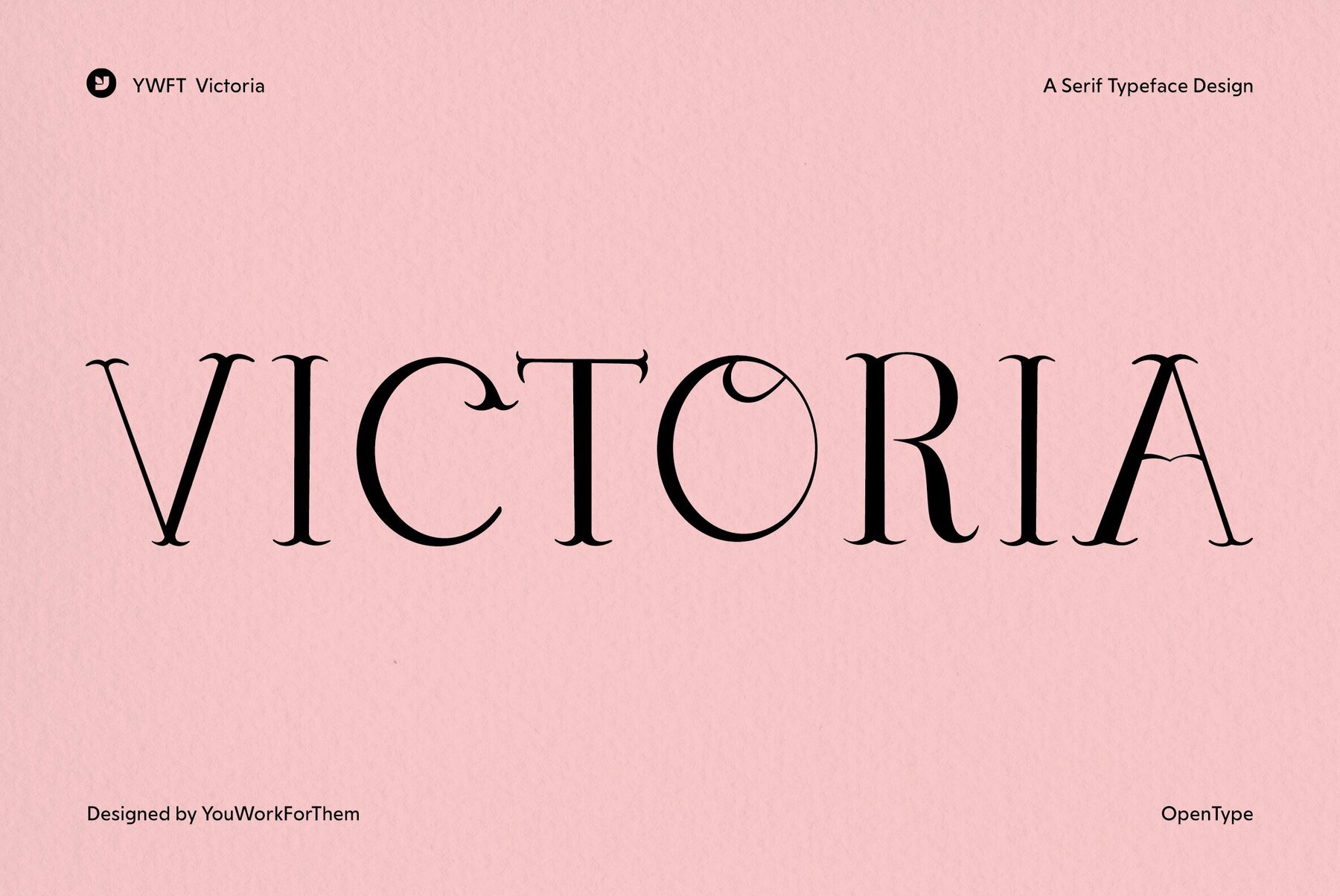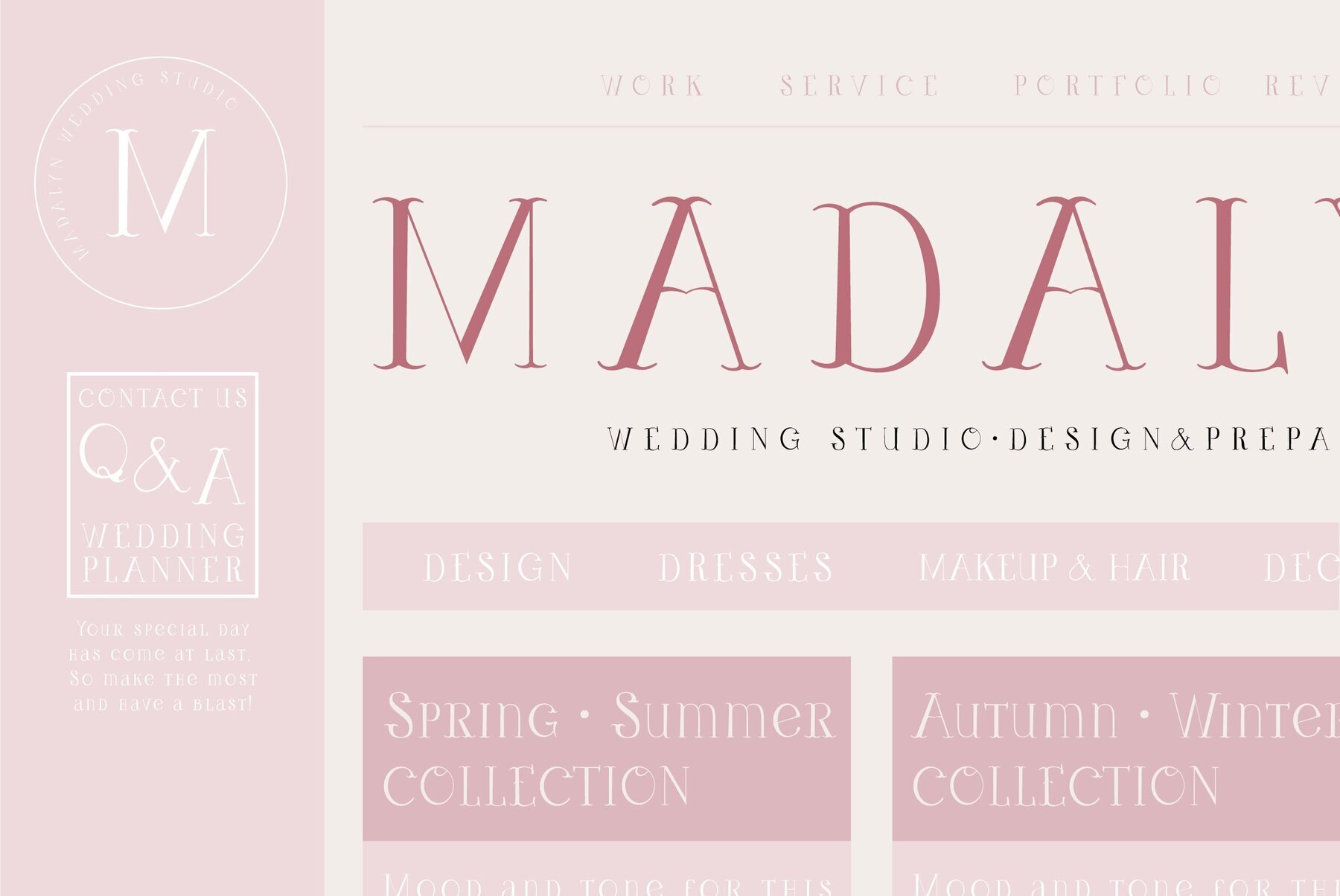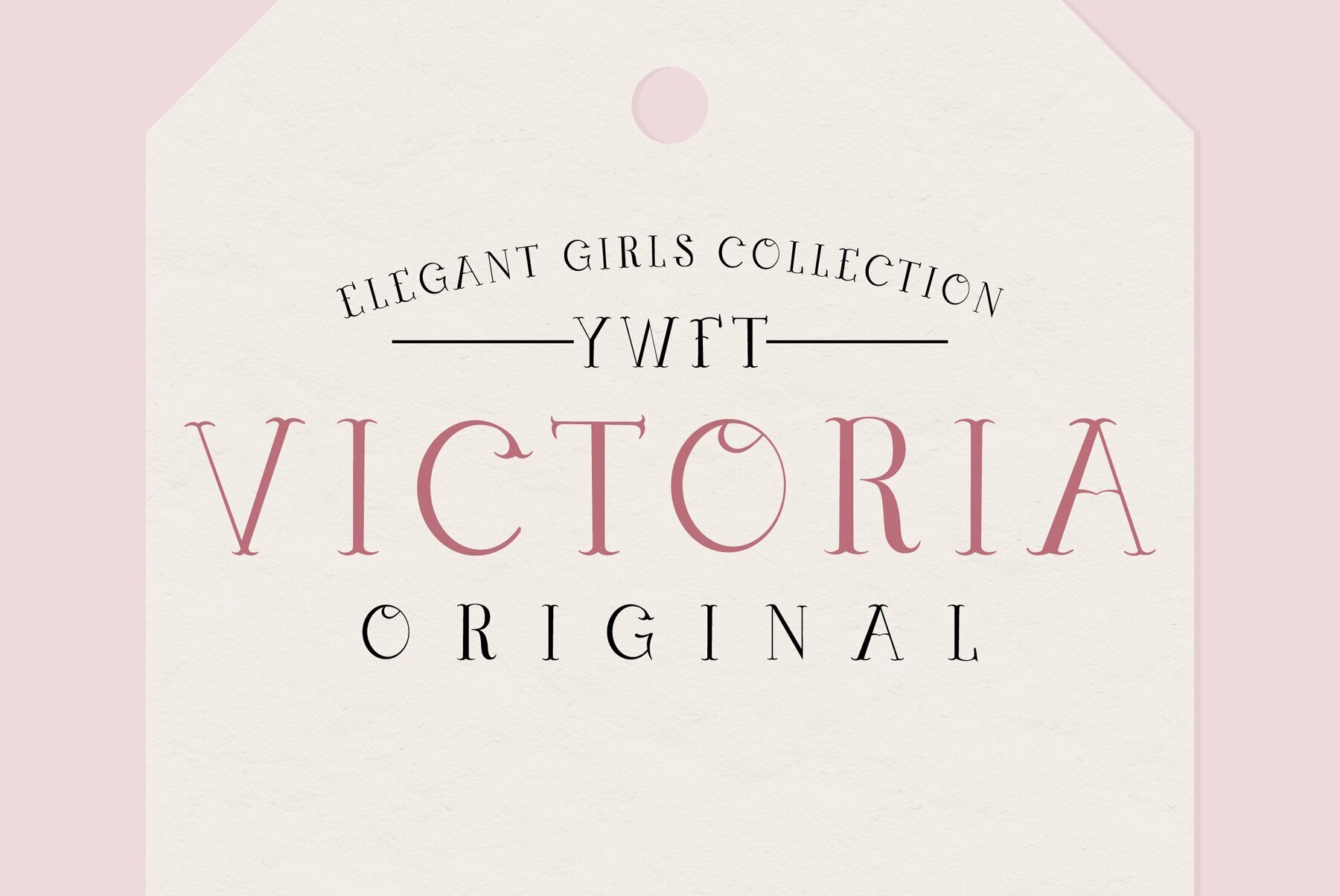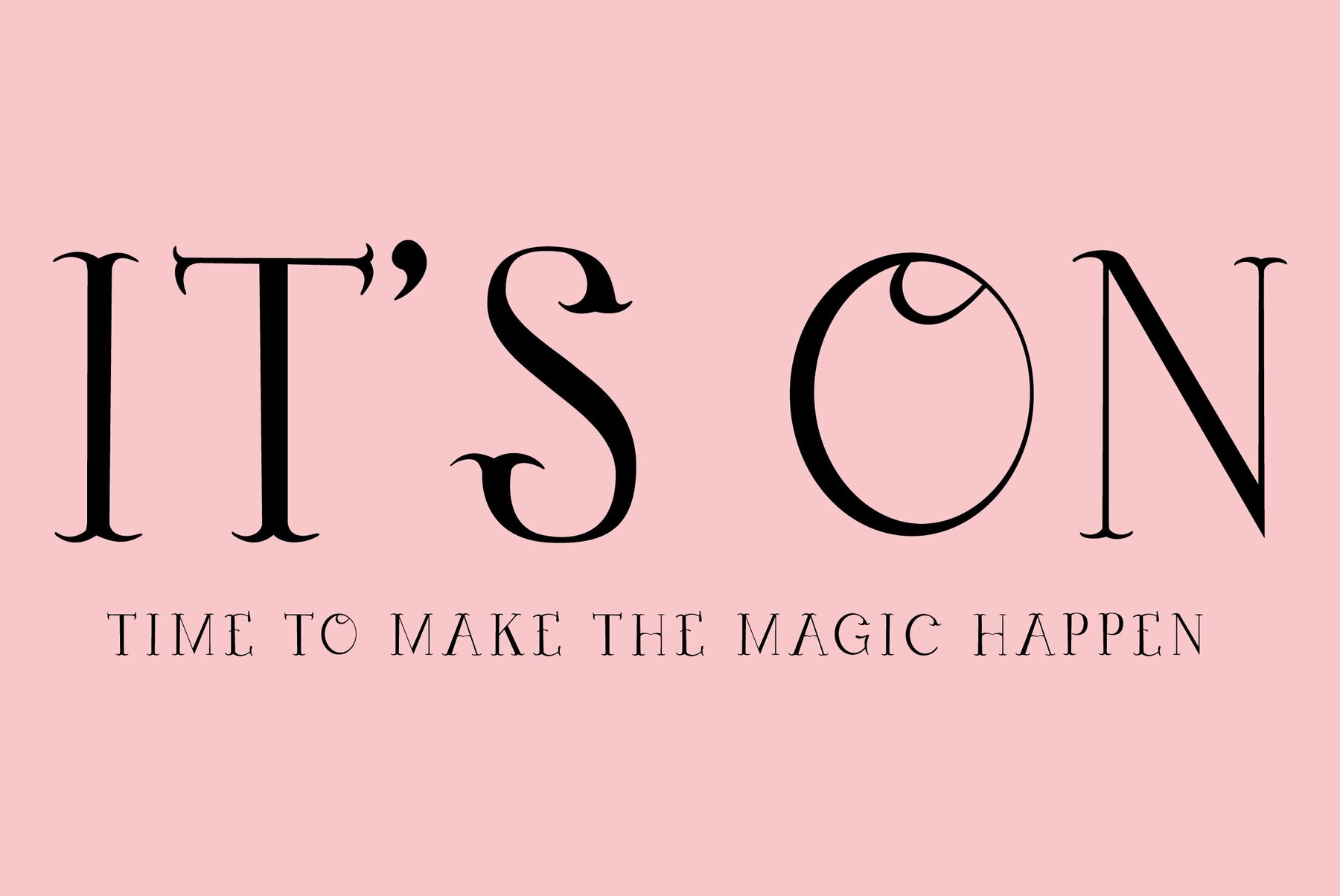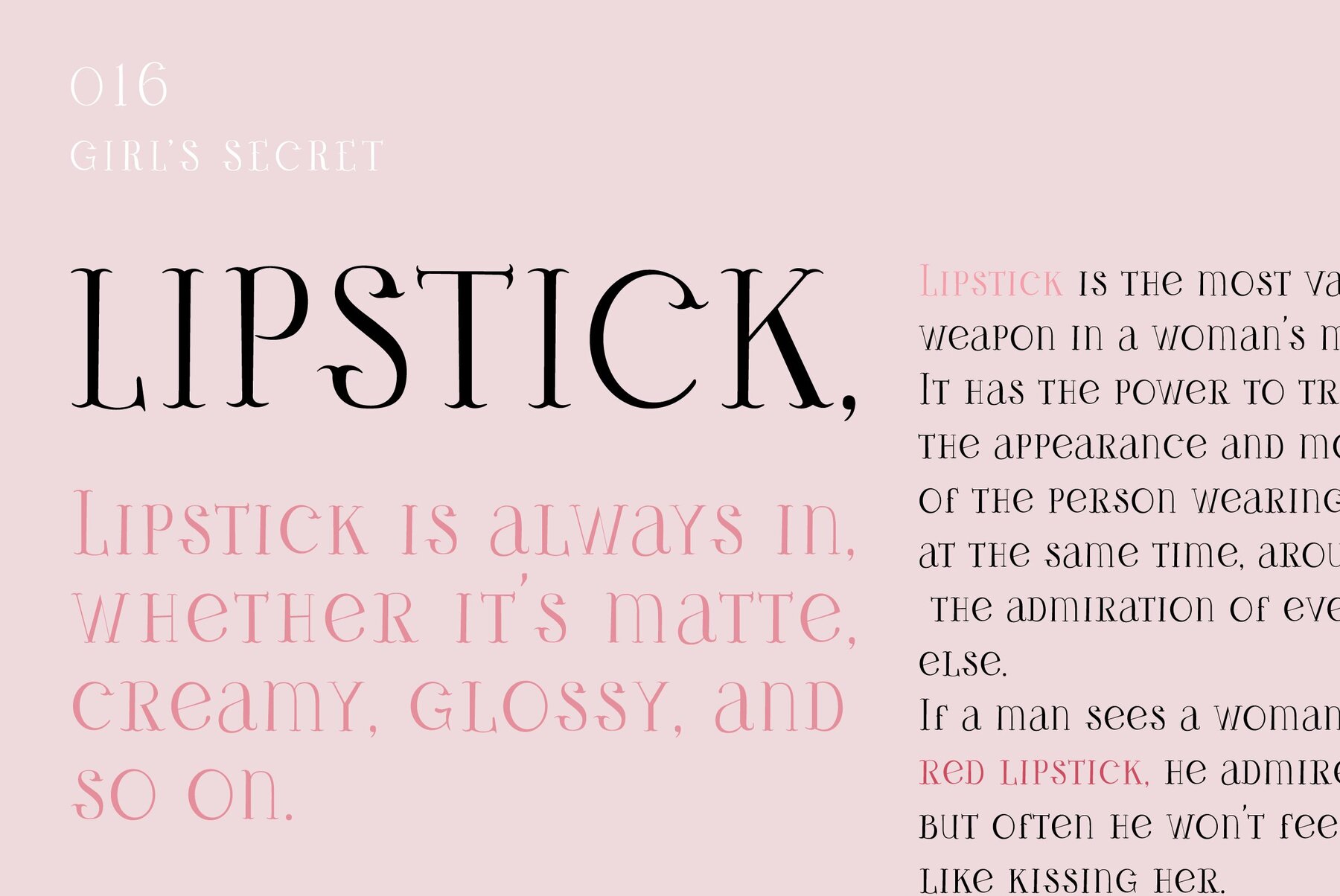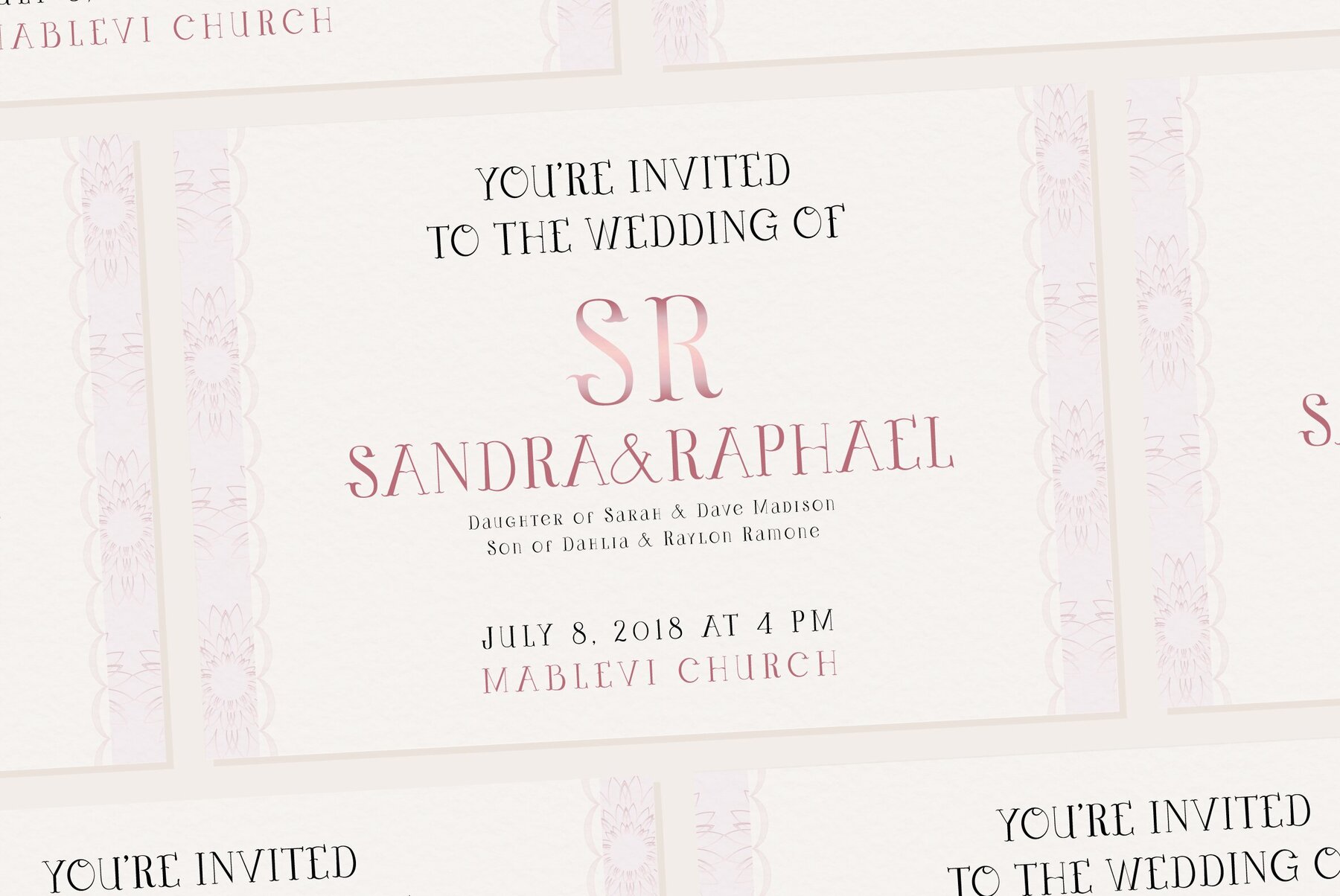
YWFT Victoria
YWFT Victoria has the feel of a traditional serif face, yet defies many of these implications due to its hand drawn origins and uniquely inconsistent line weights. This unicase typeface includes all of the characters you would find in a regular typeface (numerals, punctuation), so you can create text for any language you are working in. YWFT Victoria was converted to opentype format in 2010.